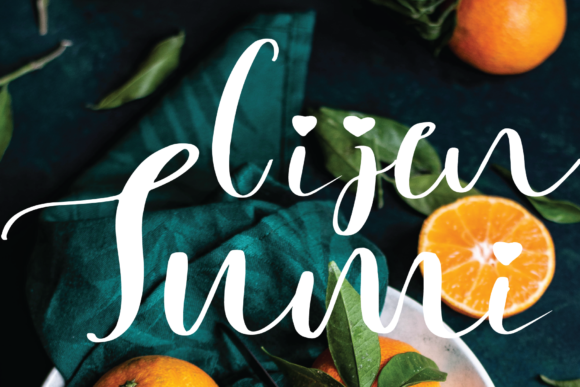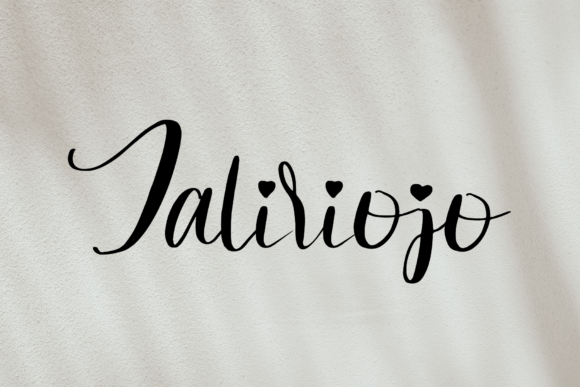
HomeScript FontsDarling Font Script Fonts Darling Font FacebookXPinterestWhatsApp Darling Font Poster 2 Darling Font Poster 3 Darling Font Poster 4 About Darling Font Darling is a romantic handwritten font. It will give all your crafting designs a unique touch! DOWNLOAD NOW People also explored Raw Hello Anissta Font Magnestic Font Farm Fresh Trees Font Chuckybits Font Britney Valentine Font Sajodo Font Aesthetic Font Goswell Font 323 0 TagsDarling Font Previous articleBrucke FontNext articleJaeggers Font LEAVE A REPLY Cancel reply Comment: Please enter your comment! Name:* Please enter your name here Email:* You have entered an incorrect email address! Please enter your email address here Website: Save my name, email, and website in this browser for the next time I comment. Personal Use Free Ciggs Personal Use Free Read more about this font Grillin Personal Use Free Read more about this font Haris Wood Personal Use Free Read more about this font Wintersoul Personal Use Free Read more about this font BLOG Best Fonts for YouTube Videos: Make Your Thumbnails Stand Out Best Fonts for YouTube Videos: Make Your Thumbnails Stand Out Choosing the right font can make a massive difference in how your YouTube videos perform.... Modern Sans-Serif Fonts That Brands Love in 2025 Top 10 Handwritten Fonts That Elevate Your Designs Transform Your Website: Elevate Your Typography with 7 Best Web Font Generators